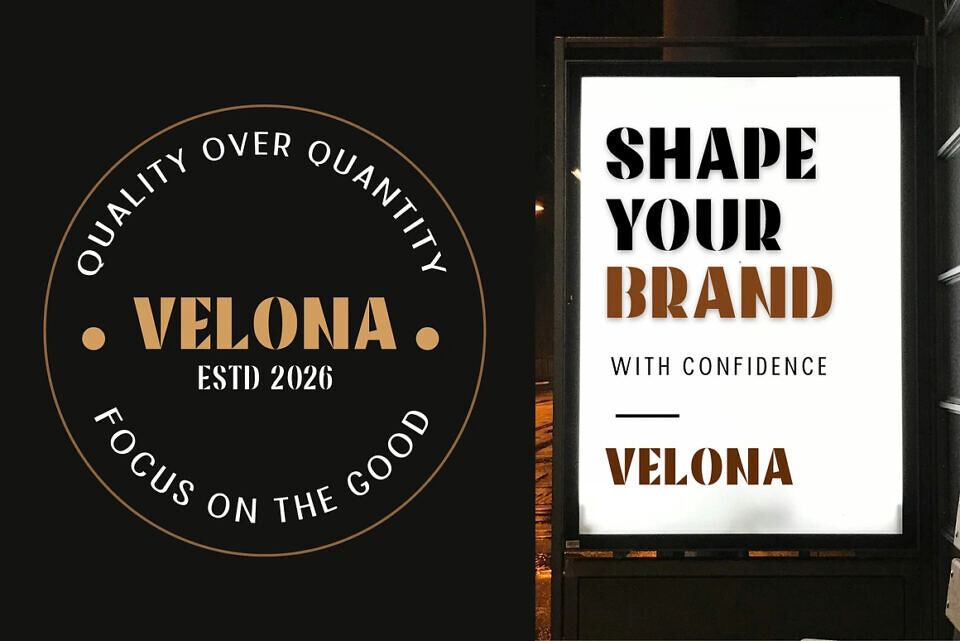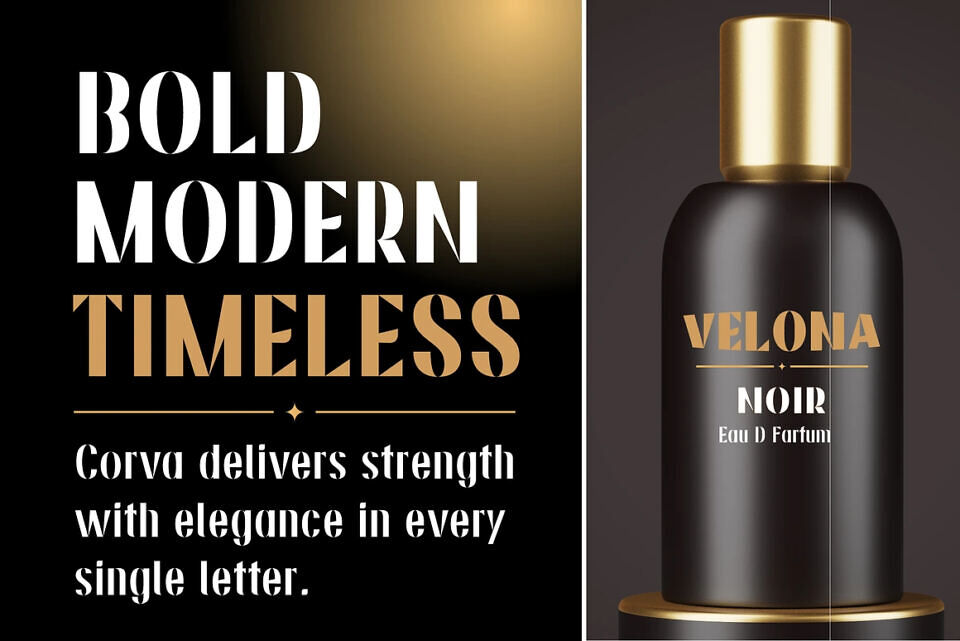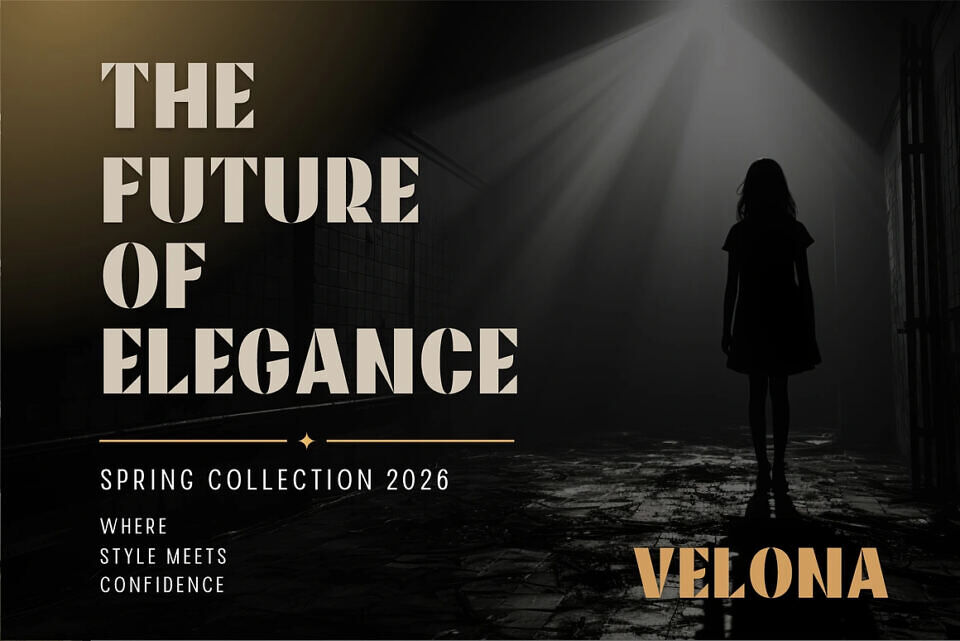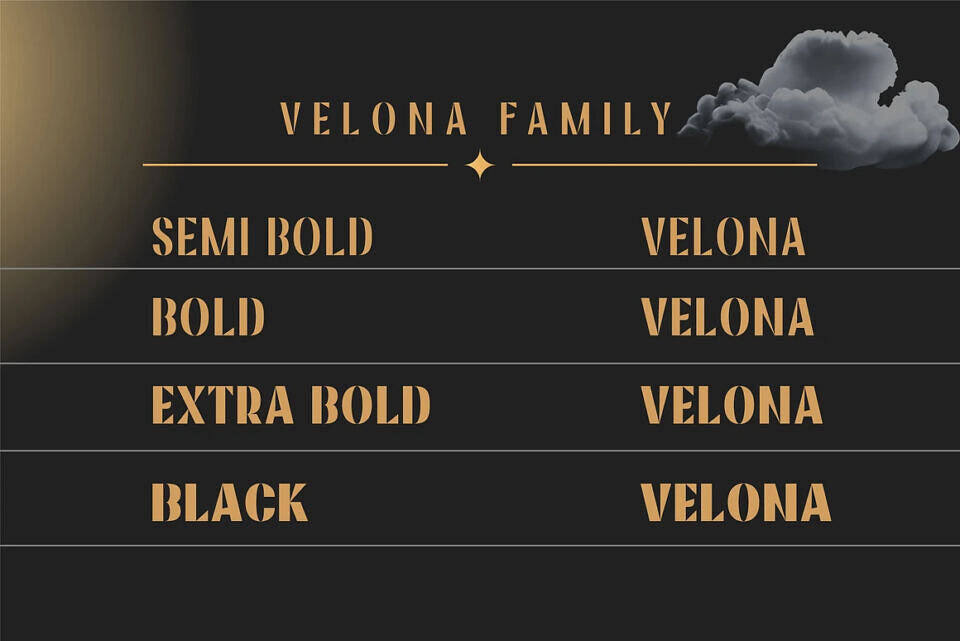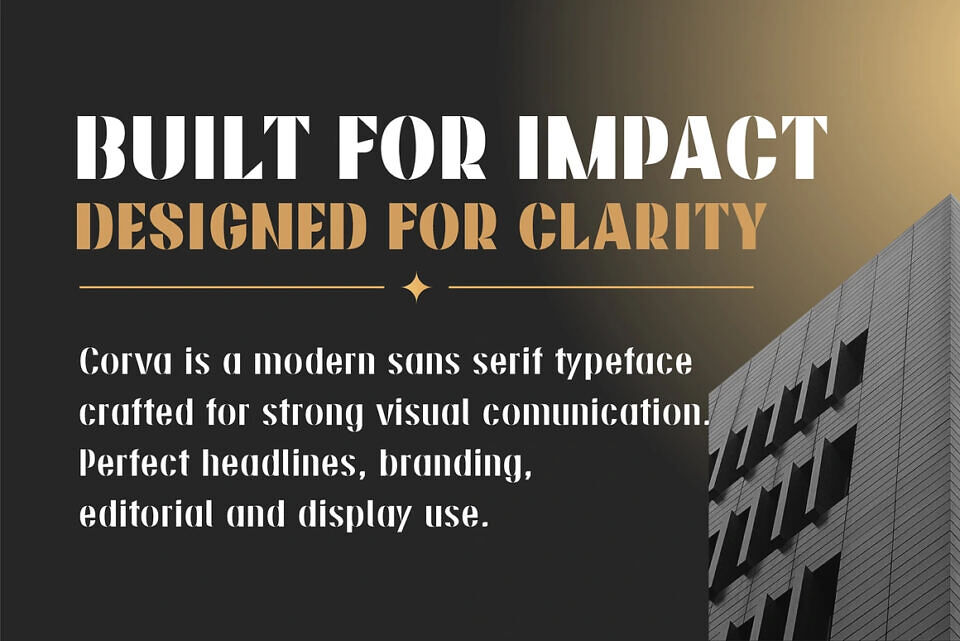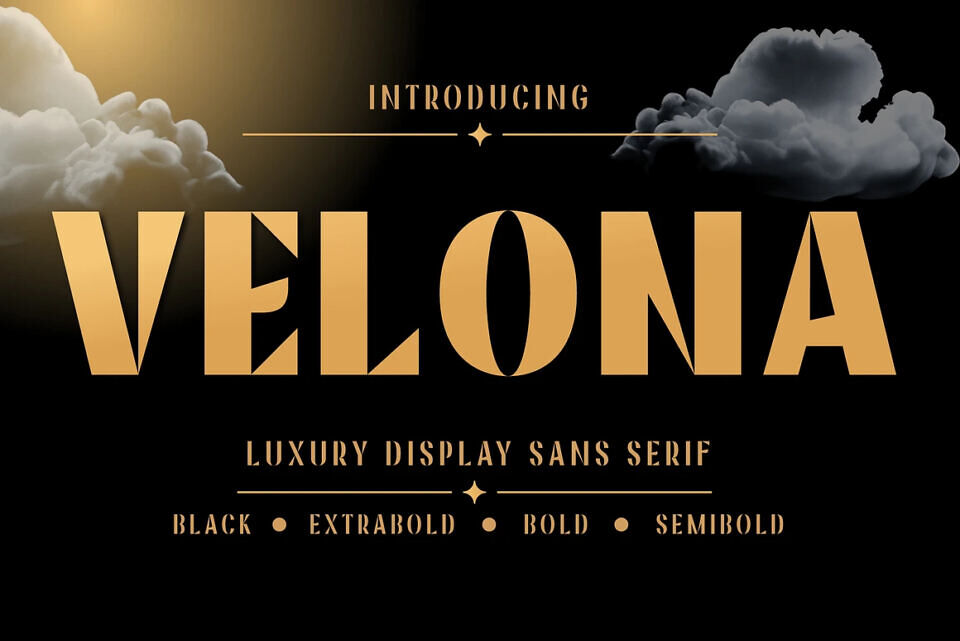
Velona Font
Velona is a luxury display sans serif font crafted to bring elegance, sophistication, and bold visual impact to your creative projects. Featuring unique geometric cuts, sharp angles, and refined Art Deco-inspired details, Velona combines modern luxury with timeless glamour.
The font family includes multiple weights ranging from Semibold, Bold, ExtraBold, to Black, providing flexibility for both subtle elegance and powerful headlines. Whether you’re creating luxury logos, fashion editorials, cosmetic packaging, wedding invitations, magazine covers, social media graphics, or upscale marketing materials, Velona delivers a sophisticated and memorable appearance that commands attention.